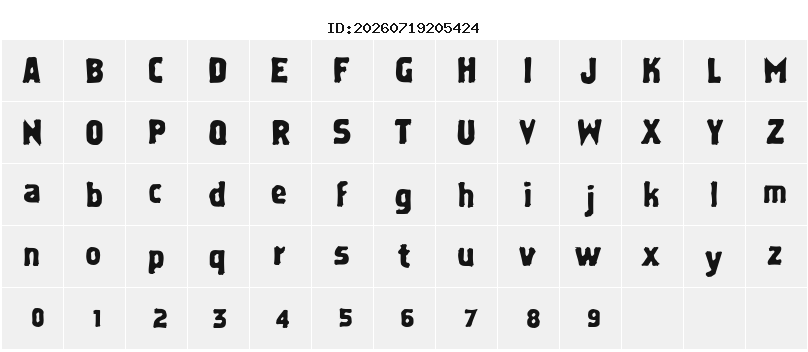
• Font Name: Erodefont
• Full Font Name: Erodefont
Erodefont.ttf is a modern, elegant sans-serif font designed for ultimate readability and visual harmony. Perfect for branding, headlines, web design, and print materials.